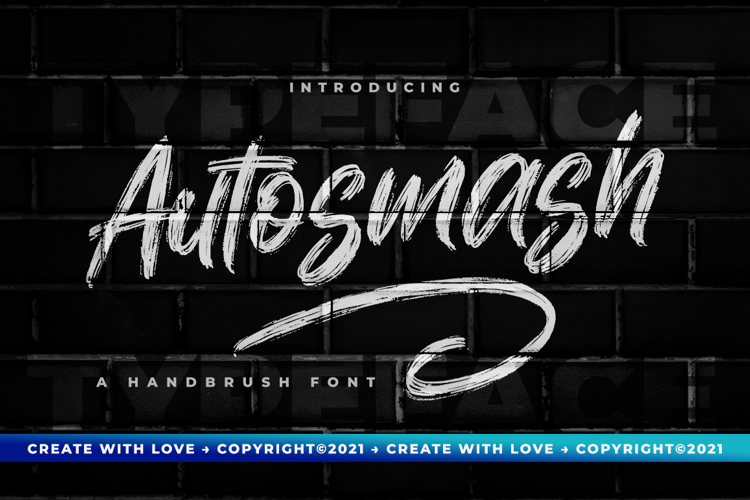
Autosmash Font
Autosmash is a lovely and brushed script font that exudes elegance and class. This font was particularly crafted for those who need a beautiful and refreshing look to their designs.